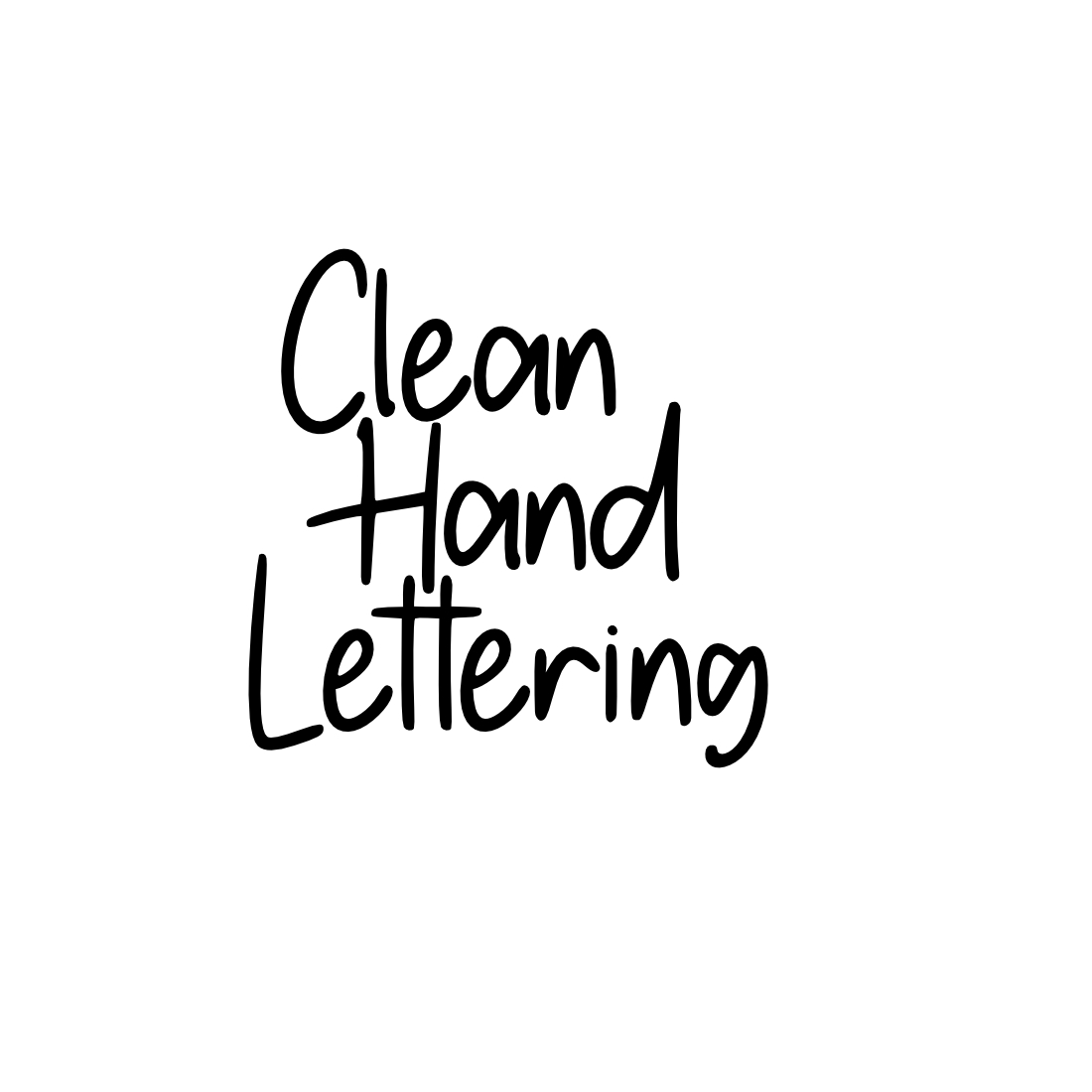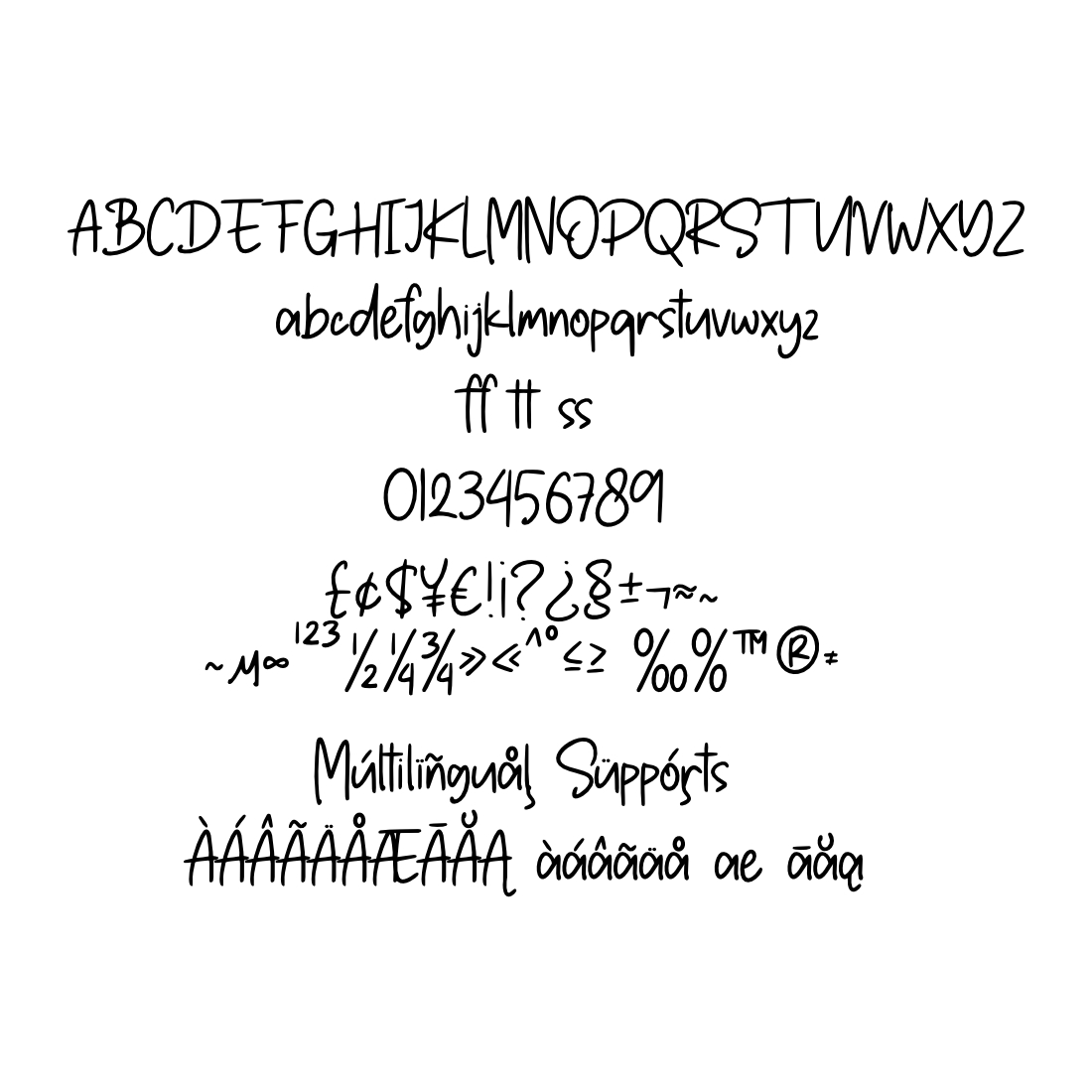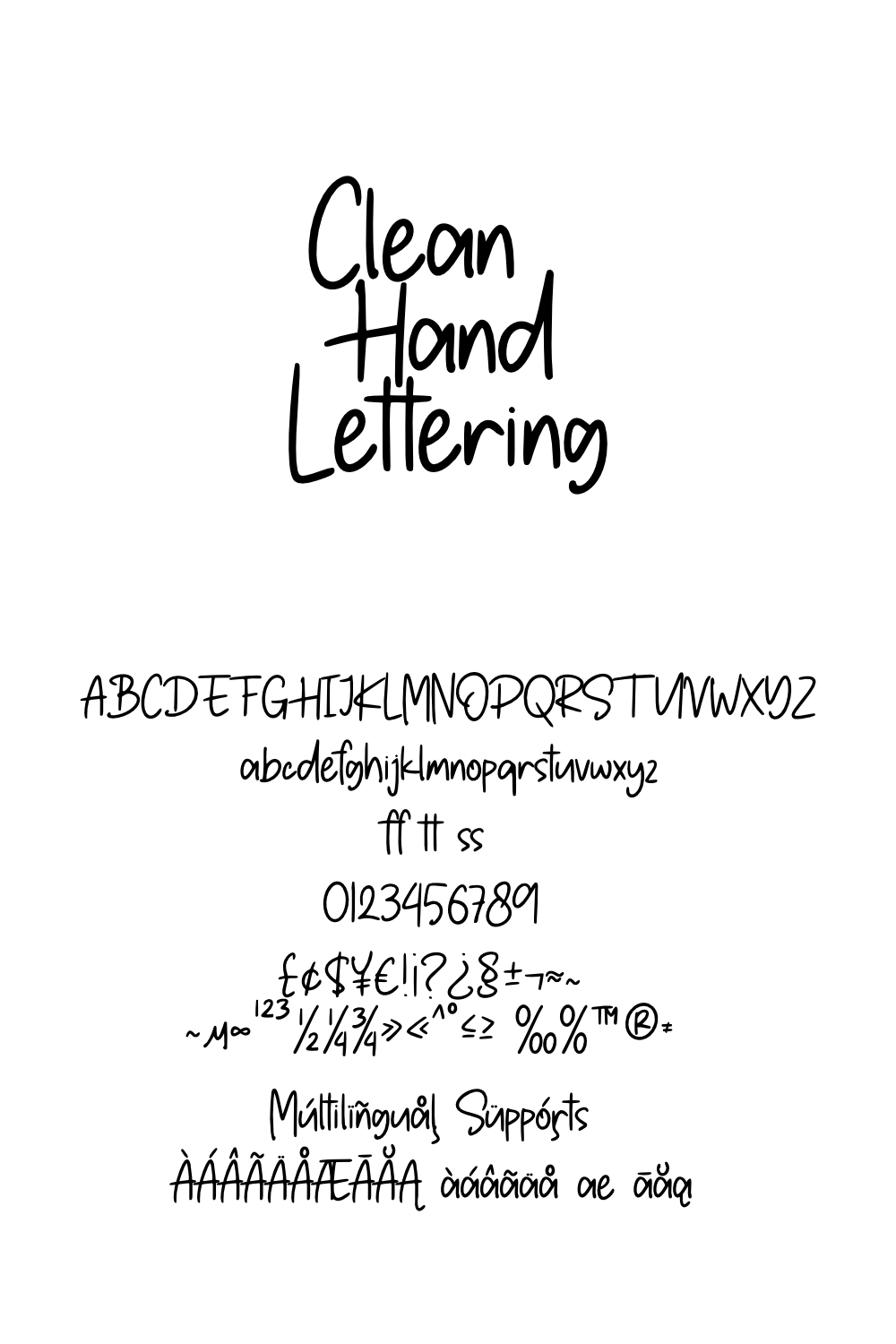
Clean Hand Lettering is a sophisticated and elegant premium font design that features smooth, flowing lines and impeccable hand-drawn details. This decorative font exudes a sense of refinement and luxury, making it perfect for high-end branding, invitations, and editorial design projects. Its clean and crisp style adds a touch of sophistication to any design.